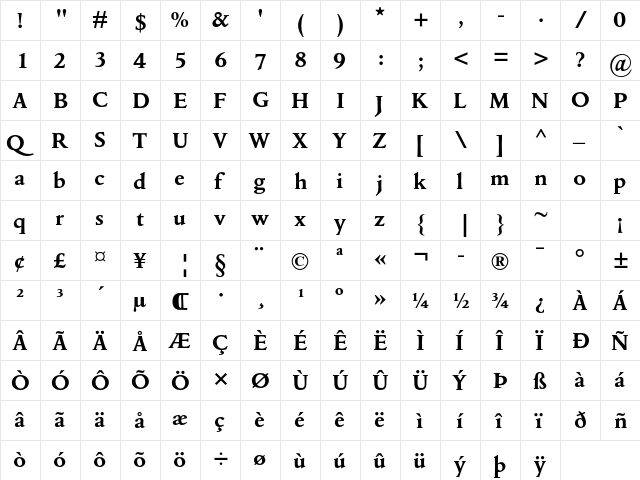
Columbus MT Std Bold
Design Context for Columbus MT Std Typeface
Columbus MT Std offers clean, dependable letterforms without strong stylistic allegiance, making it a practical choice for designers who need flexibility. Its bold stroke weight gives it real presence on the page.